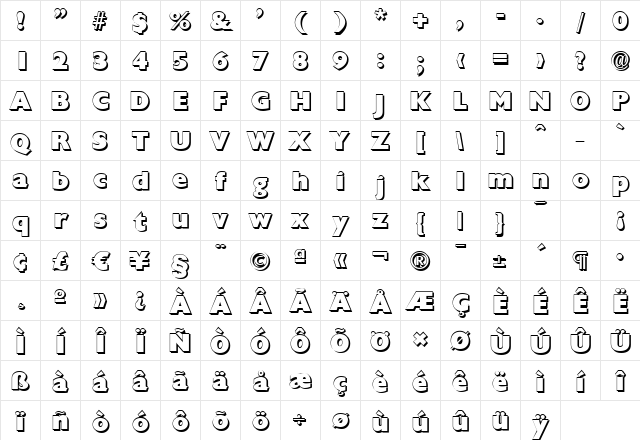
DavidBeckerShadow-Heavy Regular
DavidBeckerShadow-Heavy Family
Complete DavidBeckerShadow-Heavy Regular glyph index. Displaying only characters natively supported by DavidBeckerShadow-Heavy Regular font.
Design Context for DavidBeckerShadow-Heavy
DavidBeckerShadow-Heavy is built around its visual character rather than neutral utility - its distinctive forms are designed to make an impression at display sizes.
Font Pairing: Pair with a clean neutral sans-serif for body copy to let DavidBeckerShadow-Heavy's character lead without overwhelming the composition.
Pro Tip: Use DavidBeckerShadow-Heavy exclusively at display sizes - it was designed to be seen, not read at length. Let a neutral companion handle body copy.